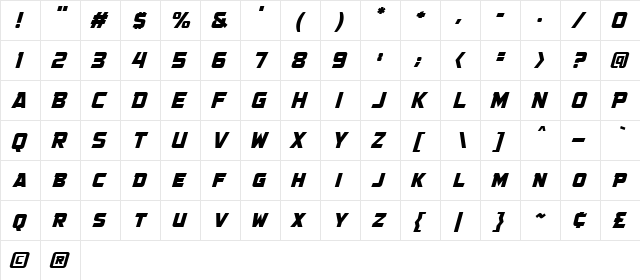
Government Agent BB Italic
| Foundry | Nate Piekos. Blambot.com |
| Designer | Nate Piekos |
Design Context for Government Agent BB Typeface
Government Agent BB takes a measured approach to typography — its balanced proportions and neutral character make it a reliable workhorse for both digital and print work. Its italic angle brings a sense of urgency and motion to the letterforms.
Pro Tip: Try Government Agent BB for annotation and caption copy alongside an upright companion — the contrast in angle creates a dynamic but ordered typographic system.